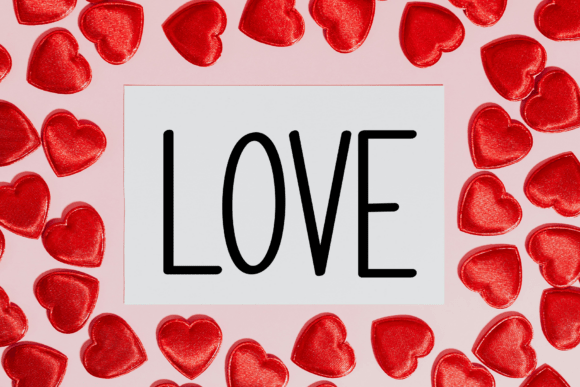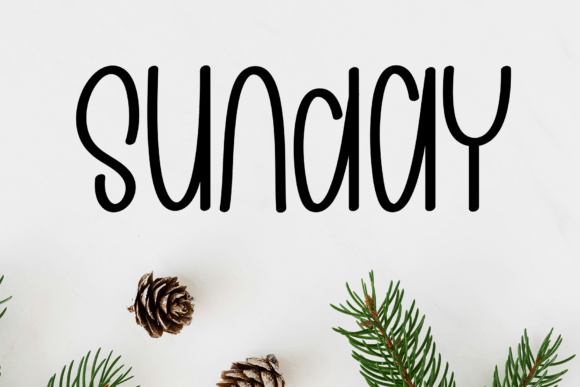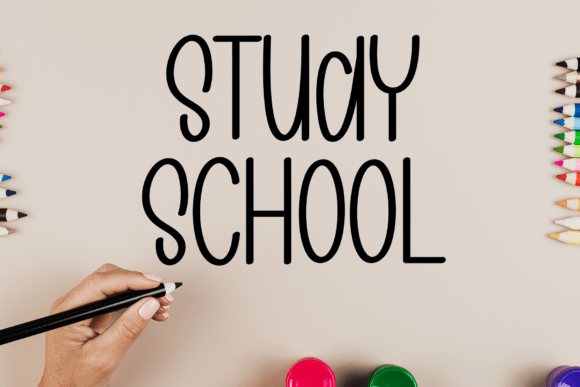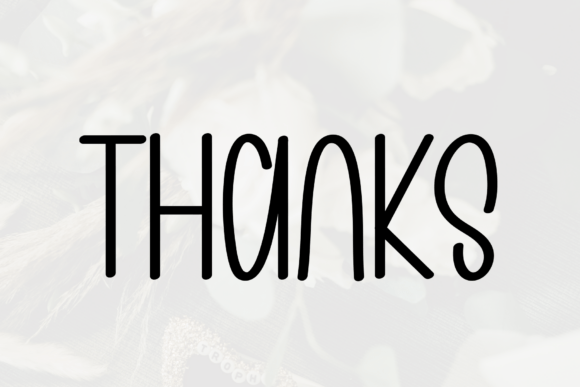
Introduction to Magnolia Style Font
Magnolia Style | New Display Font Magnolia Style is a distinctive display font characterized by its tall, slender letterforms and unique, hand-drawn architecture.
With its clean lines and minimalist silhouette, it strikes a perfect balance between organic warmth and modern sophistication It is the premier choice for boutique lifestyle branding, โslow livingโ magazine headers, and high-end artisanal packaging.